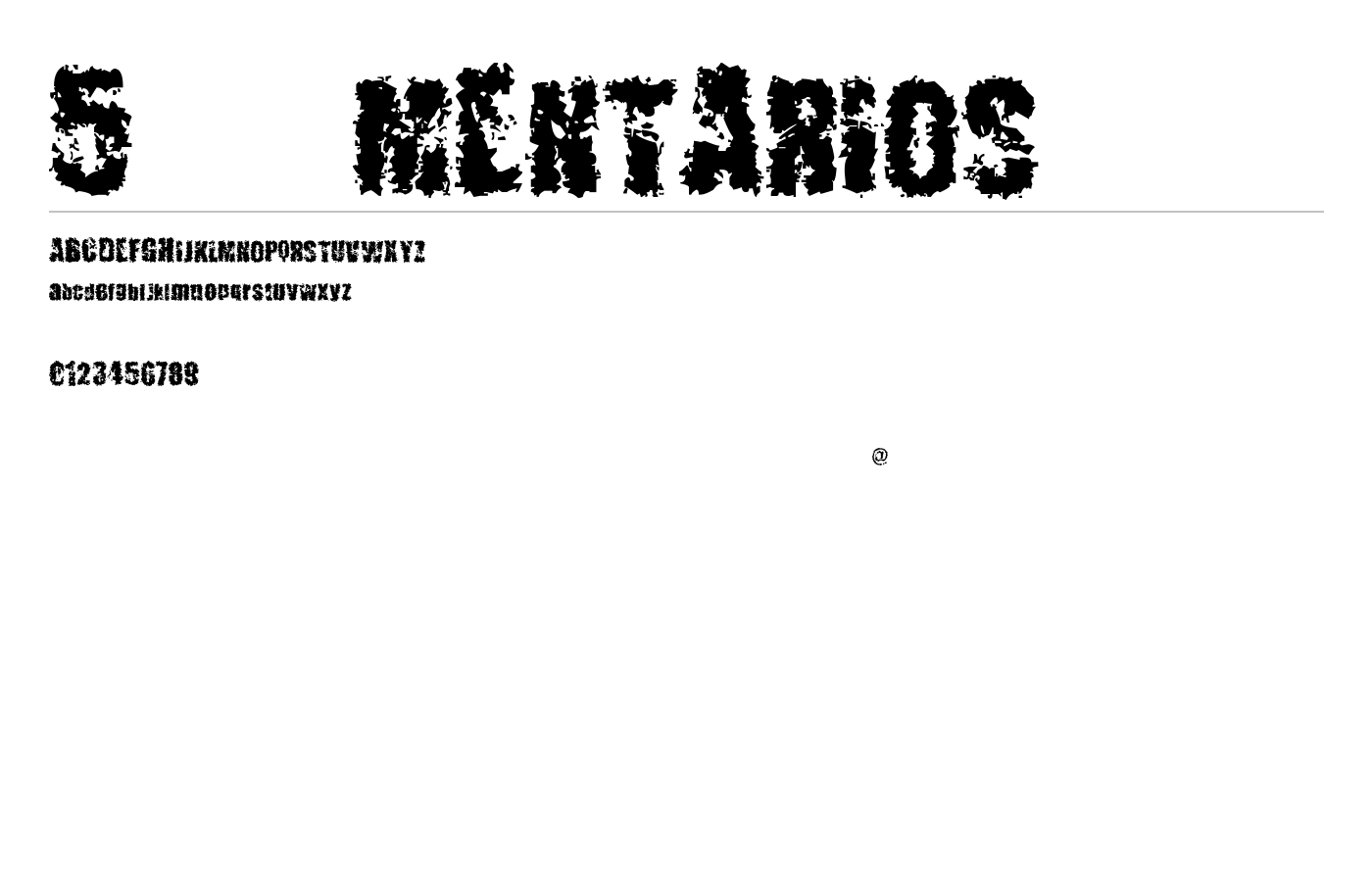
5+MENTARIOS is a bold, distressed sans serif font that captures attention with its rough, textured appearance, reminiscent of worn or eroded surfaces. Its heavy weight and tight spacing give it a strong, impactful presence, making it ideal for edgy, gritty designs like posters, album covers, and branding that seeks to evoke a rebellious or urban vibe. This font works best in headlines or display uses where its unique texture can stand out without sacrificing legibility.
5+MENTARIOS Font
About 5+MENTARIOS Font